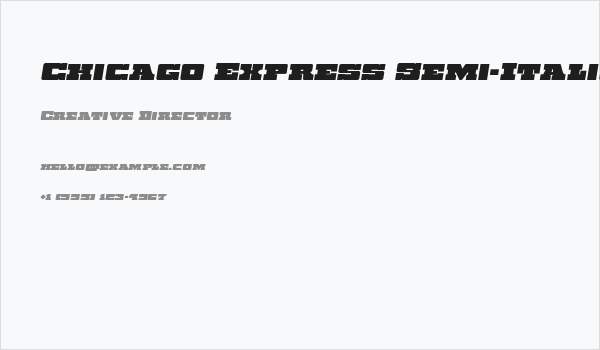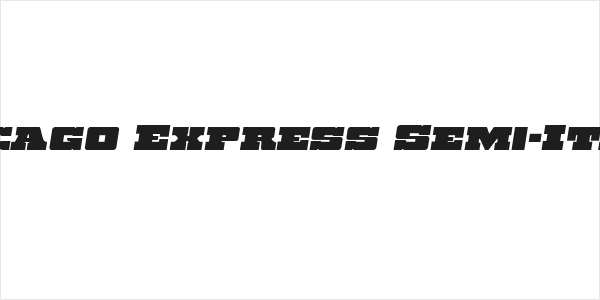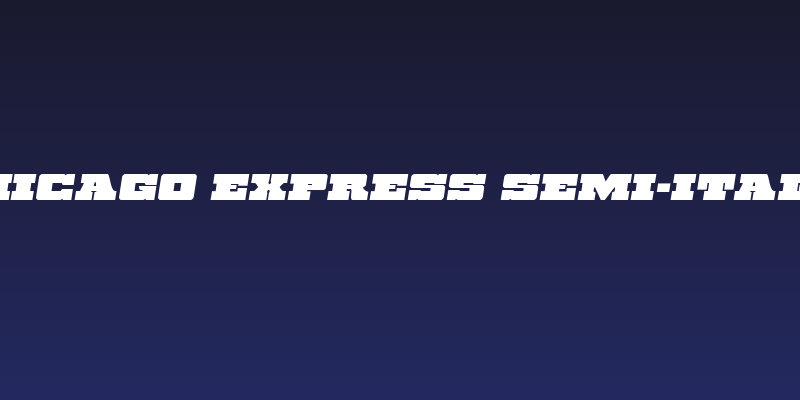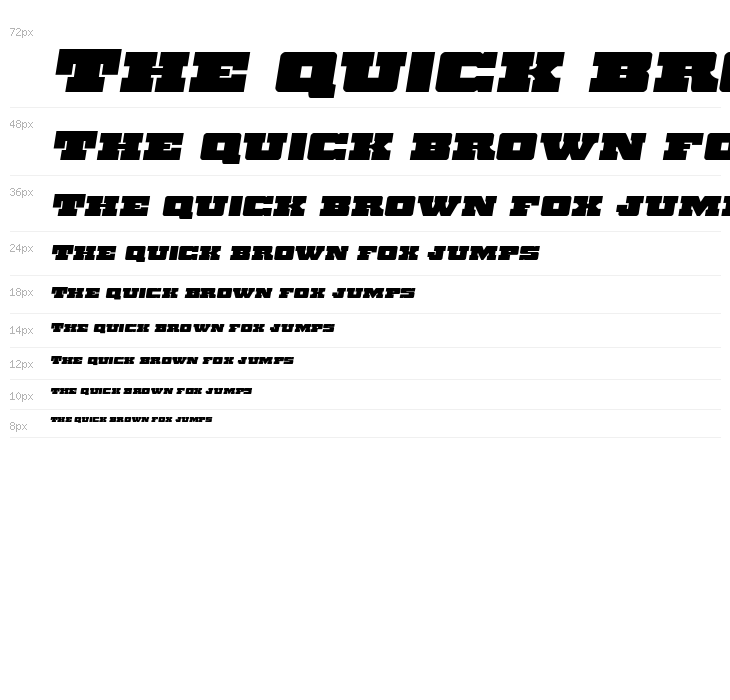
Chicago Express Semi-Italic Font
Chicago Express Semi-Italic Description
This font features a bold and dynamic style with a semi-italic slant, giving it a sense of movement and energy. The characters are robust and slightly condensed, with sharp angles and a strong presence. The uppercase letters are particularly striking, with a blocky, geometric design that commands attention. The numerals and special characters maintain this bold aesthetic, ensuring consistency across all glyphs. This font is ideal for projects that require a strong, impactful visual statement.
| Proposed Projects | Ideal for sports branding, posters, headlines, and any design needing a bold, energetic typeface. |